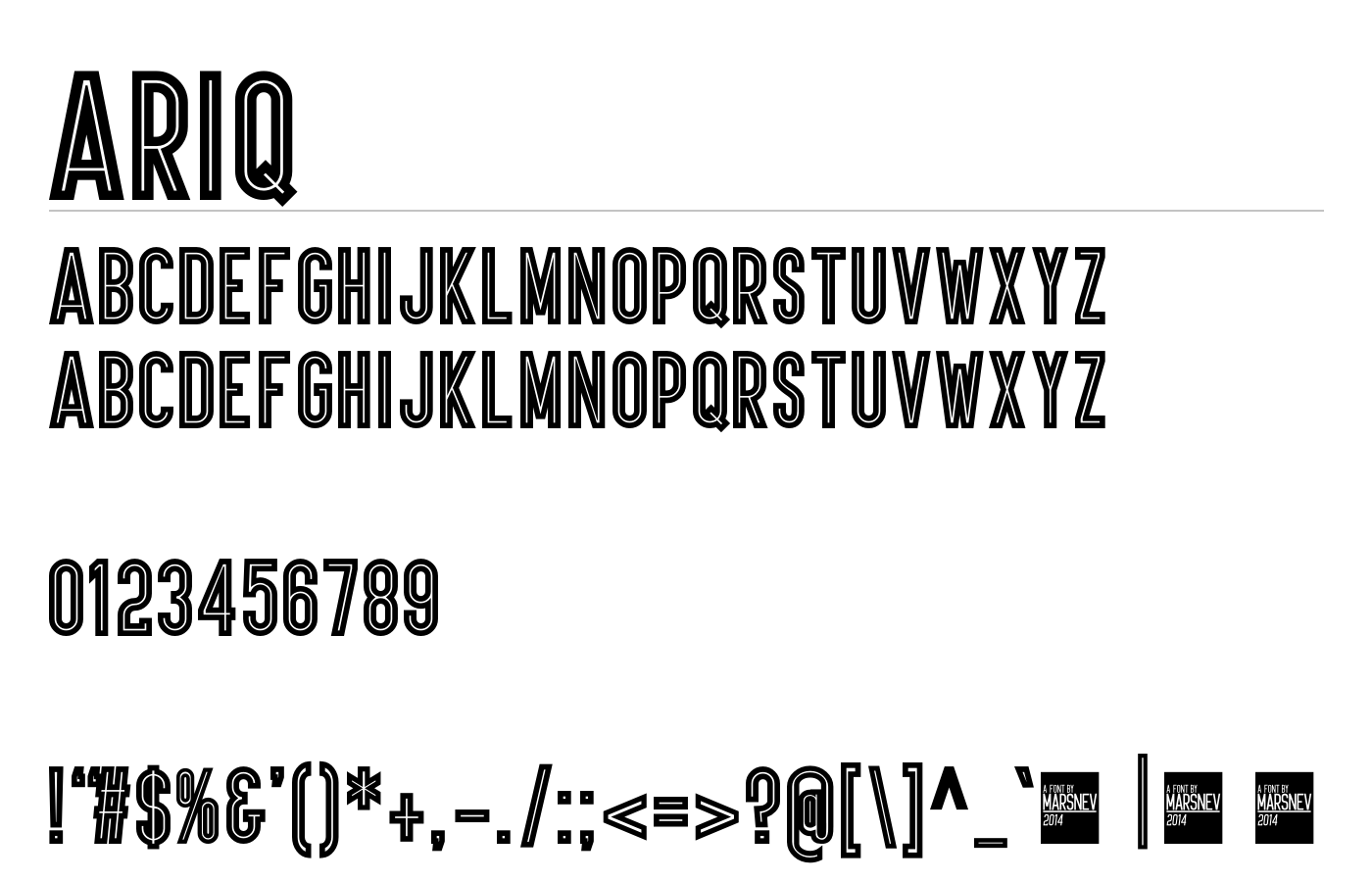
Ariq is a bold, condensed sans serif font with a modern and clean aesthetic, characterized by its double-line outline that adds a distinctive, high-impact look. Its tall letterforms and tight spacing make it perfect for striking headlines, logos, and display use where a strong, contemporary statement is needed. This font works well in fashion, technology, and editorial designs that demand attention with a sleek yet approachable style.
Ariq Font